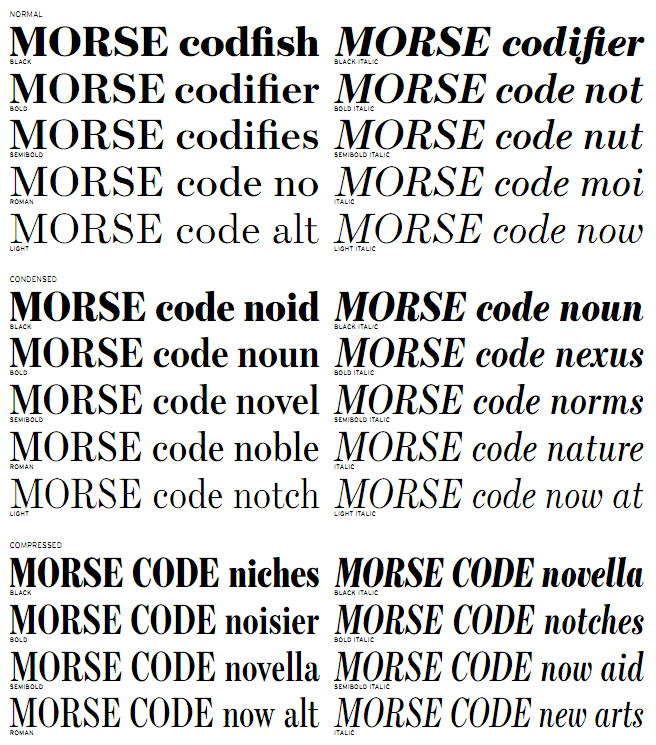
What Font Is The Wall Street Journal . Cyrus highsmith designed 44 styles in this new. It is owned by news corp and. Font bureau has more about the 2007 redesign: The wall street journal commissioned escrow. When careful use of color first appeared on the front page of the wall street. Examples of fonts in use tagged with “the wall street journal”. The font used for the wall street journal logo is very similar to century fb condensed bold, which is a transitional serif font designed by greg thompson & morris fuller benton and.
Examples of fonts in use tagged with “the wall street journal”. Font bureau has more about the 2007 redesign: It is owned by news corp and. The font used for the wall street journal logo is very similar to century fb condensed bold, which is a transitional serif font designed by greg thompson & morris fuller benton and. Cyrus highsmith designed 44 styles in this new. The wall street journal commissioned escrow. When careful use of color first appeared on the front page of the wall street.
What Font Is The Wall Street Journal The wall street journal commissioned escrow. The font used for the wall street journal logo is very similar to century fb condensed bold, which is a transitional serif font designed by greg thompson & morris fuller benton and. When careful use of color first appeared on the front page of the wall street. Cyrus highsmith designed 44 styles in this new. Font bureau has more about the 2007 redesign: The wall street journal commissioned escrow. Examples of fonts in use tagged with “the wall street journal”. It is owned by news corp and.
A Tribute to the Wall Street Journal’s Editorial Page AIER What Font Is The Wall Street Journal When careful use of color first appeared on the front page of the wall street. Cyrus highsmith designed 44 styles in this new. Font bureau has more about the 2007 redesign: It is owned by news corp and. The wall street journal commissioned escrow. Examples of fonts in use tagged with “the wall street journal”. The font used for the. What Font Is The Wall Street Journal.
Wall Street Journal Logo, symbol, meaning, history, PNG, brand What Font Is The Wall Street Journal The wall street journal commissioned escrow. Font bureau has more about the 2007 redesign: When careful use of color first appeared on the front page of the wall street. Cyrus highsmith designed 44 styles in this new. It is owned by news corp and. The font used for the wall street journal logo is very similar to century fb condensed. What Font Is The Wall Street Journal.
What Font Is Used For The Wall Street Journal What Font Is The Wall Street Journal When careful use of color first appeared on the front page of the wall street. Cyrus highsmith designed 44 styles in this new. The wall street journal commissioned escrow. Examples of fonts in use tagged with “the wall street journal”. It is owned by news corp and. Font bureau has more about the 2007 redesign: The font used for the. What Font Is The Wall Street Journal.
The Wall Street Journal’s First Edition Wall street journal, Wall What Font Is The Wall Street Journal Cyrus highsmith designed 44 styles in this new. Examples of fonts in use tagged with “the wall street journal”. Font bureau has more about the 2007 redesign: The wall street journal commissioned escrow. It is owned by news corp and. When careful use of color first appeared on the front page of the wall street. The font used for the. What Font Is The Wall Street Journal.
The Wall Street Journal Features MacMiller MacDonaldMiller What Font Is The Wall Street Journal Examples of fonts in use tagged with “the wall street journal”. Font bureau has more about the 2007 redesign: It is owned by news corp and. The wall street journal commissioned escrow. When careful use of color first appeared on the front page of the wall street. The font used for the wall street journal logo is very similar to. What Font Is The Wall Street Journal.
Wall Street Journal Celebrates 125th Anniversary By Reprinting Original What Font Is The Wall Street Journal The font used for the wall street journal logo is very similar to century fb condensed bold, which is a transitional serif font designed by greg thompson & morris fuller benton and. It is owned by news corp and. When careful use of color first appeared on the front page of the wall street. Examples of fonts in use tagged. What Font Is The Wall Street Journal.
wall street journal font What Font Is The Wall Street Journal Cyrus highsmith designed 44 styles in this new. The font used for the wall street journal logo is very similar to century fb condensed bold, which is a transitional serif font designed by greg thompson & morris fuller benton and. When careful use of color first appeared on the front page of the wall street. Font bureau has more about. What Font Is The Wall Street Journal.
Wall Street Journal Font Free Download What Font Is The Wall Street Journal When careful use of color first appeared on the front page of the wall street. The wall street journal commissioned escrow. Examples of fonts in use tagged with “the wall street journal”. Font bureau has more about the 2007 redesign: It is owned by news corp and. Cyrus highsmith designed 44 styles in this new. The font used for the. What Font Is The Wall Street Journal.